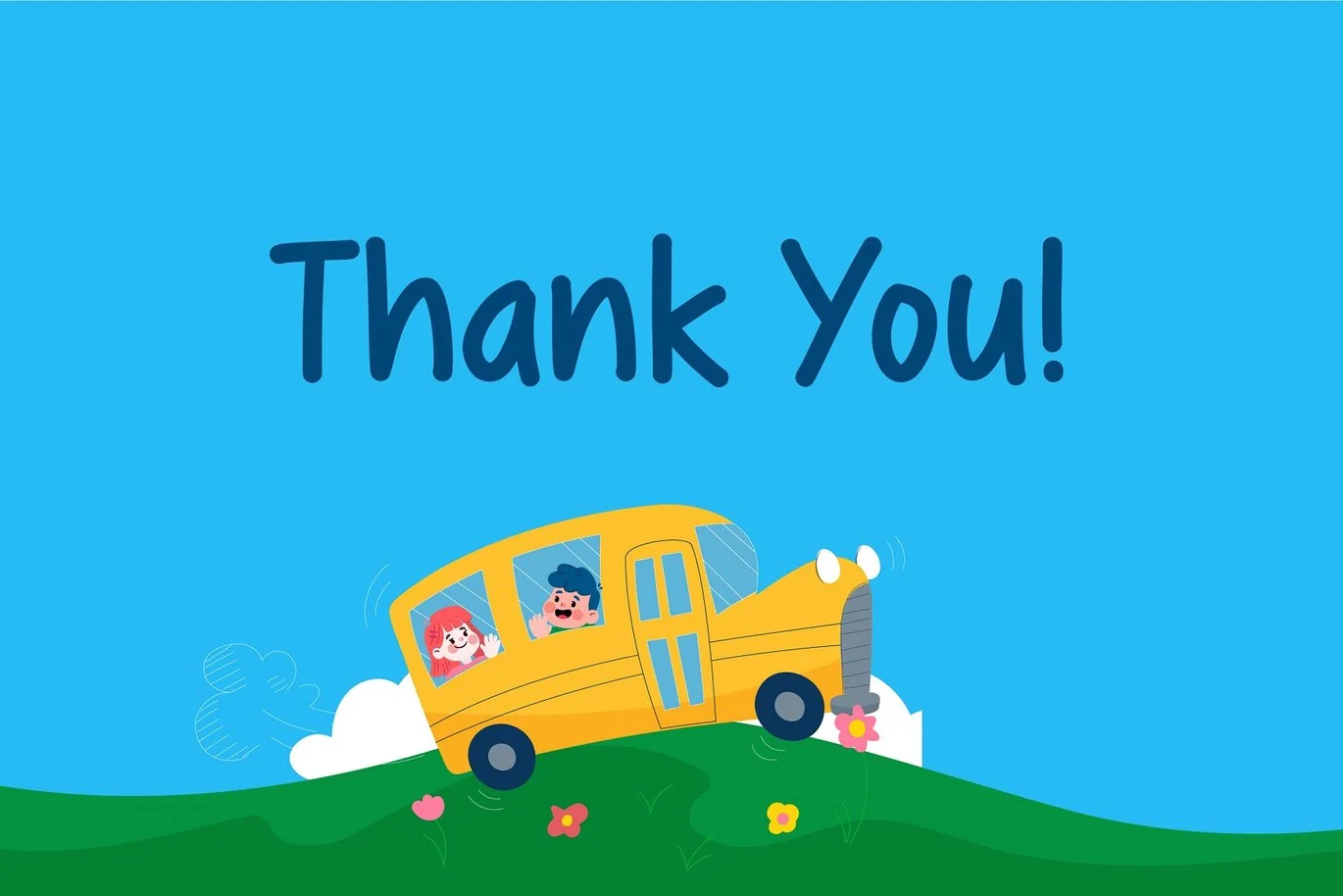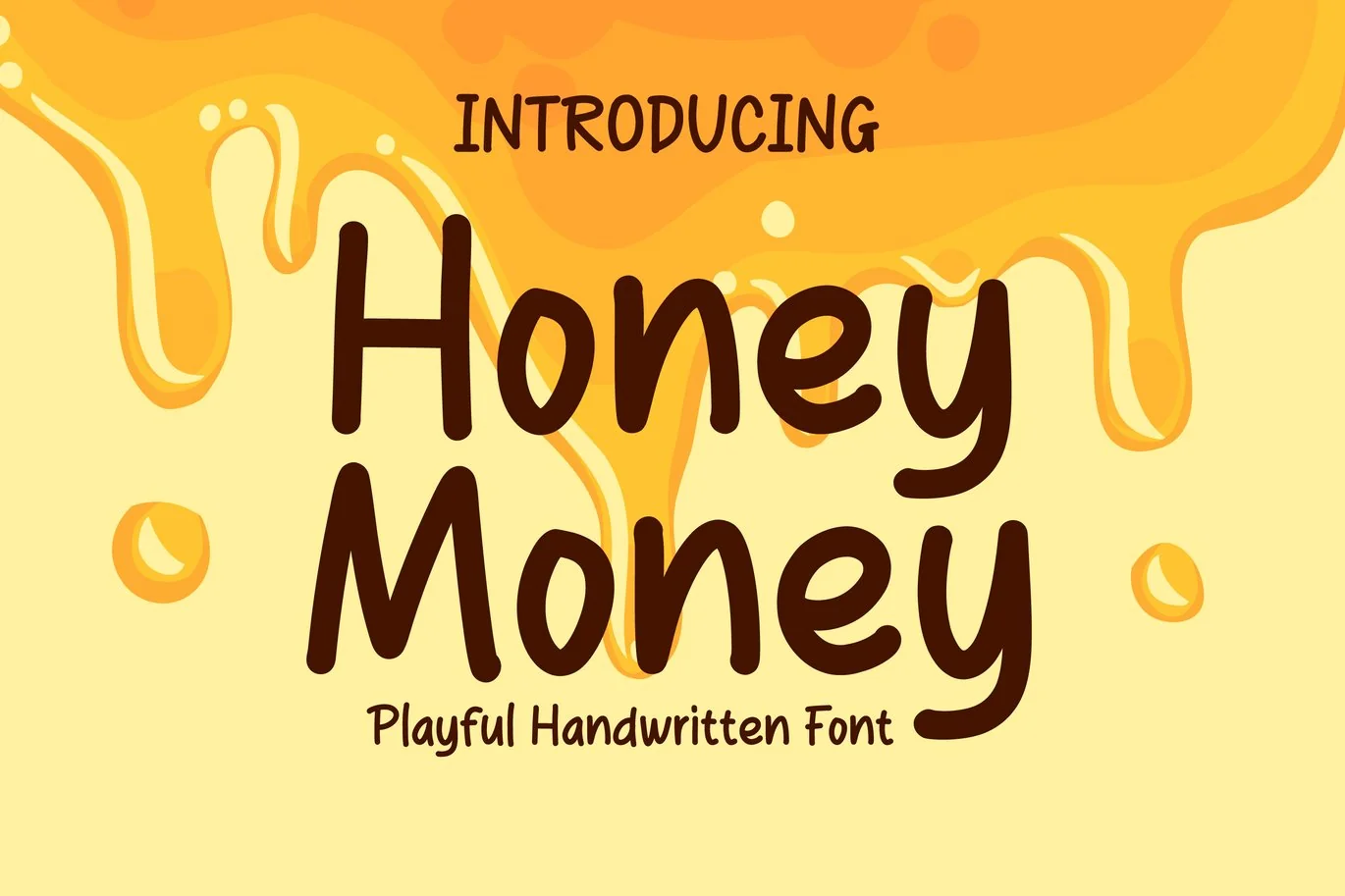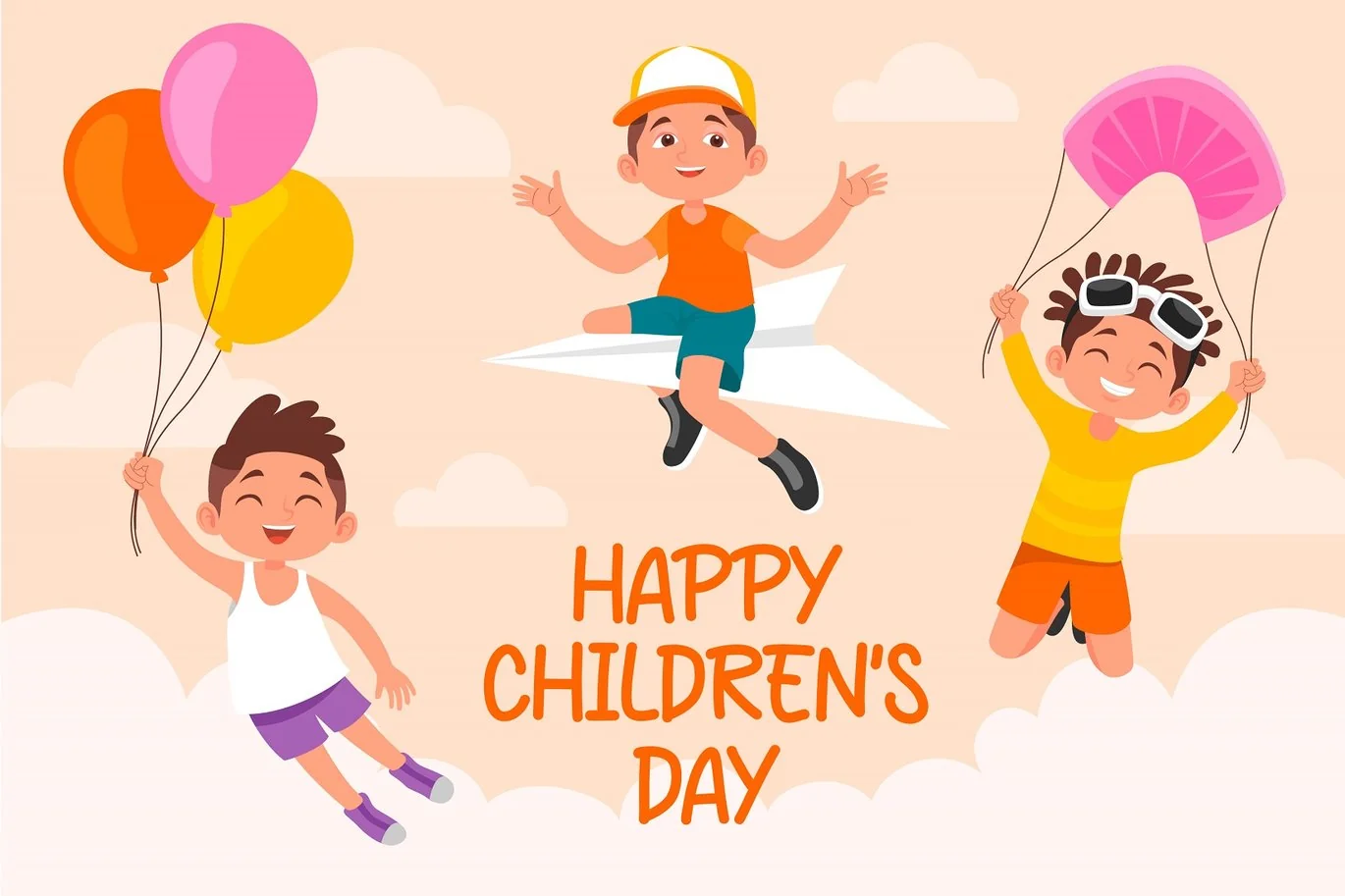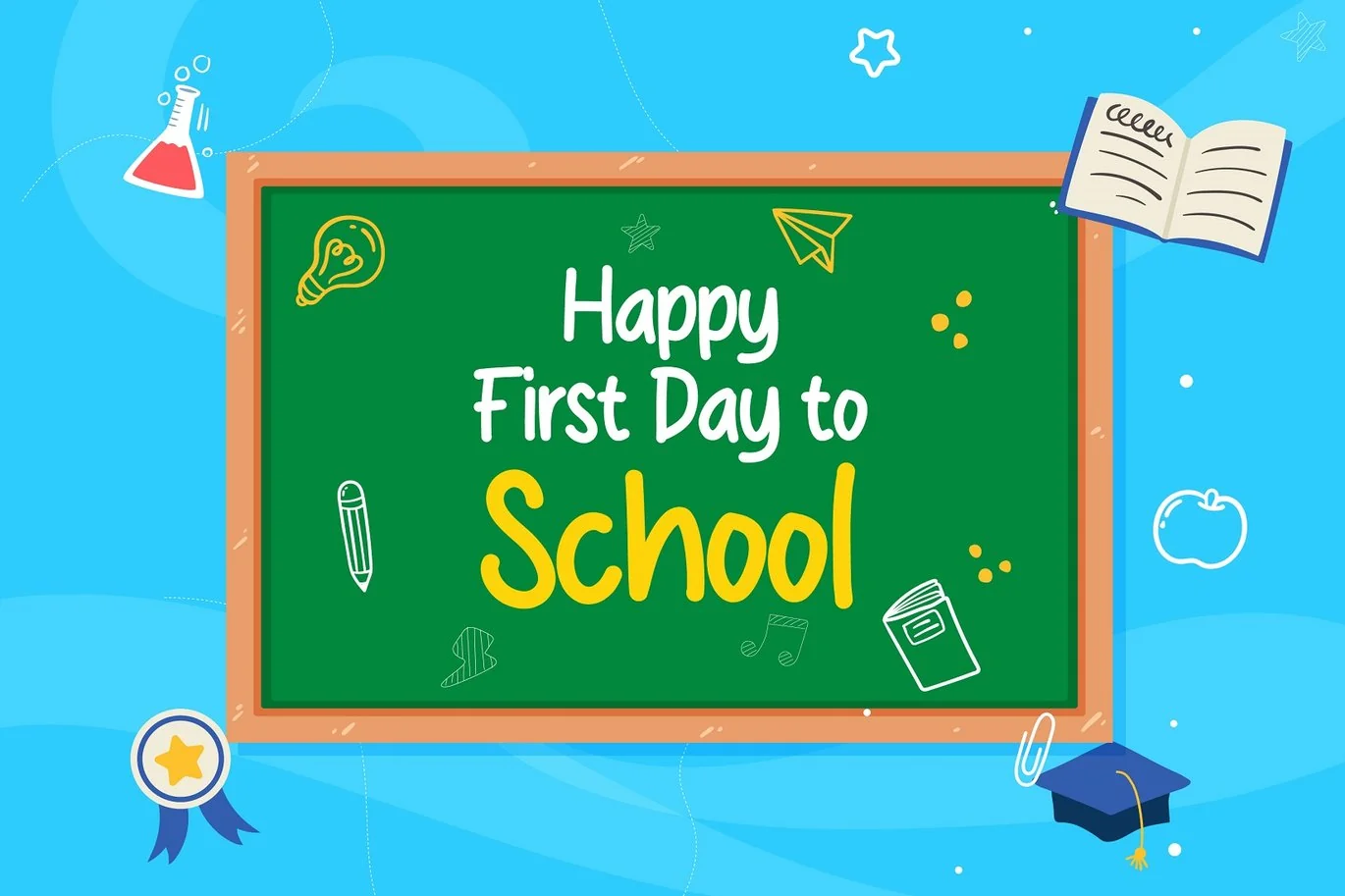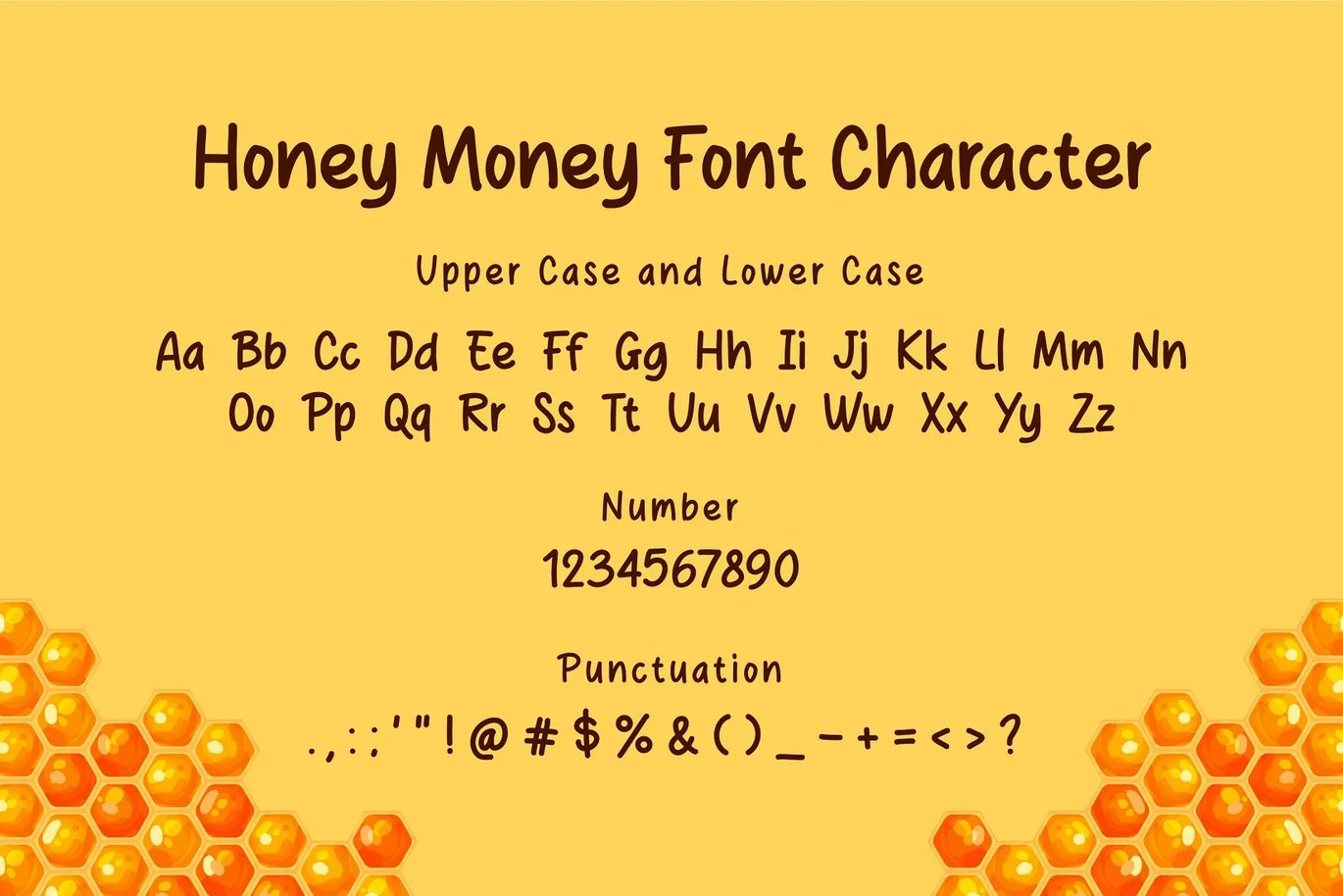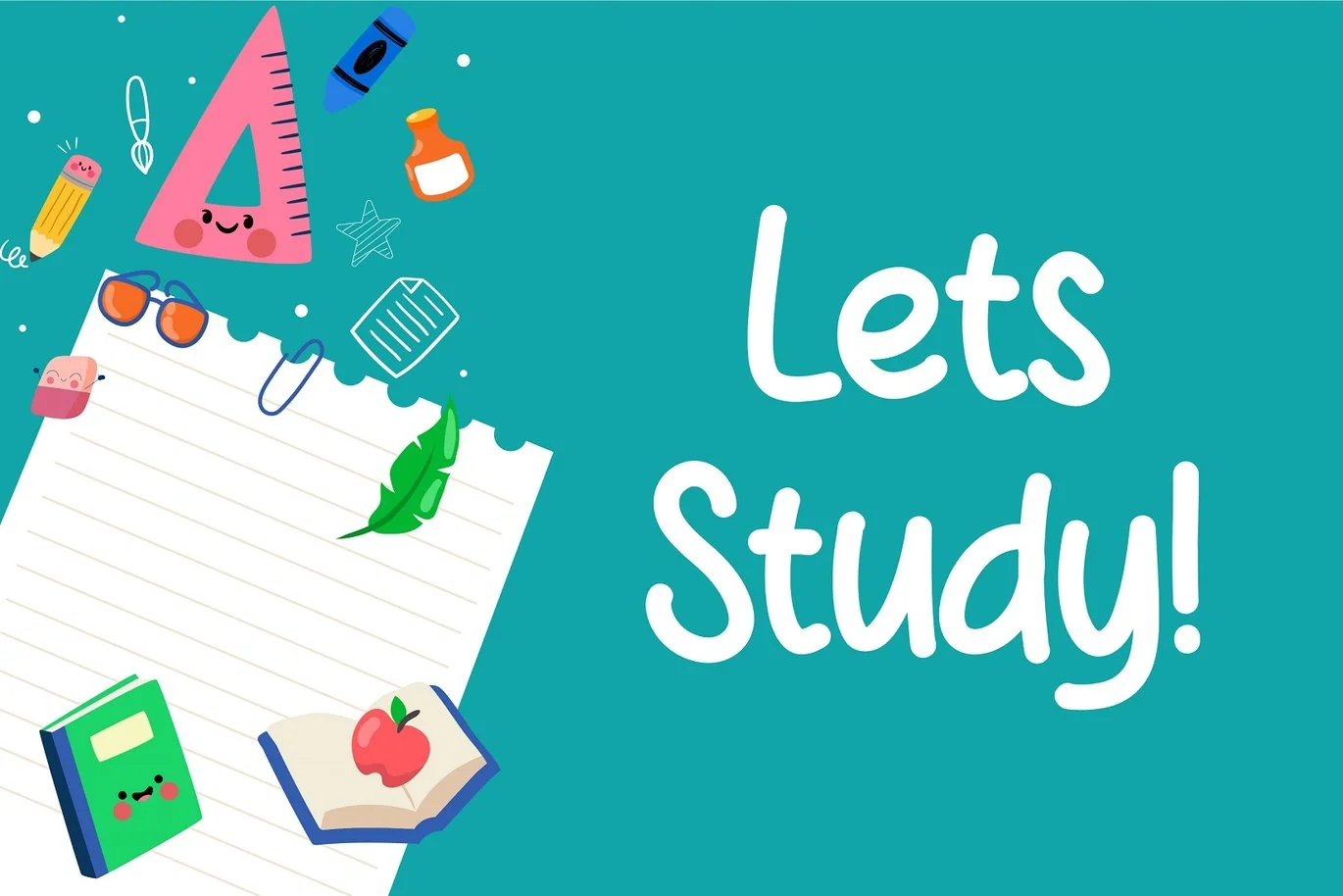
Honey Money Fun Handwritten Font
Introducing Honey Money – Fun Handwritten Font
Honey Money is a fun handwritten font. Perfect for branding projects, logo, wedding designs, social media posts, advertisements, product packaging, product designs, label, photography, watermark, invitation, stationery and any projects that need handwriting taste.